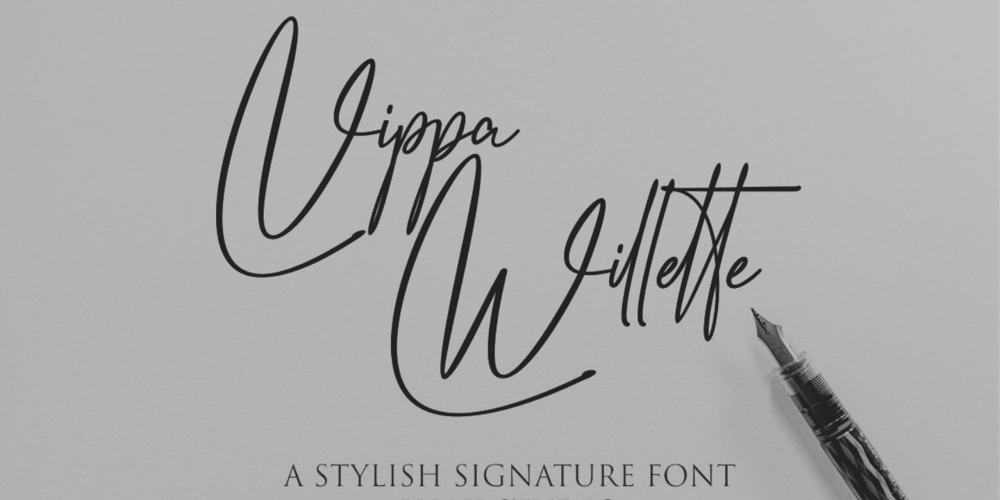
Vippa Willette
Vippa Willette font
Vippa Willette Font Family was designed by Siti Nurjanah and published by NJ Studio. Vippa Willette contains 1 styles and family package options. Hi…Thank for your visit :)Vippa Willette a sytlish signature Fonts are font designs that are made for various vector designs, printing such as digital wedding invitations, blogs, online shops, social media, while printing can be used in the field of product clothing, accessories, bags, pins, logos, business cards, watermarks and many others …Vippa Willette is equipped with complete alternates and very beautiful ligature, so it can make your product look elegant and attractive,and also Multilingual support!!!Happy design …